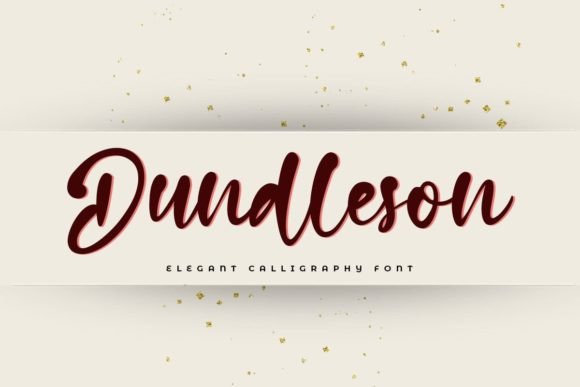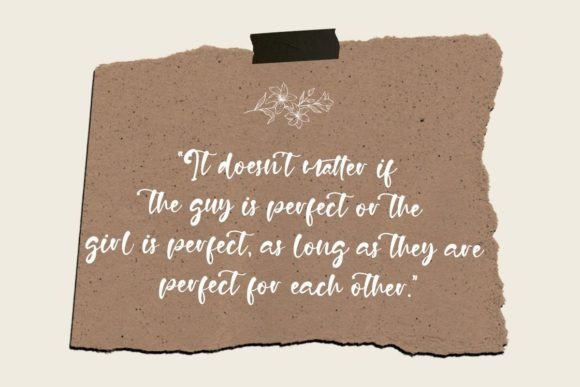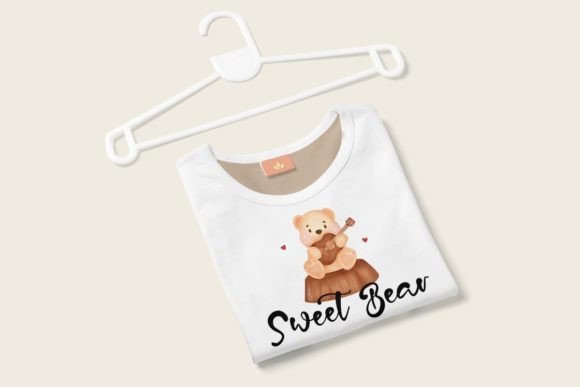
About Dundleson Font
Dundleson is a beautiful handwritten font designed to make your work stand out with its unique and eye-catching shape. Whether you’re working on product packaging, branding projects, or any design where a personal touch is desired, Dundleson adds a distinctive and stylish flair.
The beauty of Dundleson is evident in its carefully crafted letterforms, which contribute to its unique and eye-catching appearance. The handwritten style of the font brings a personal and authentic touch to your designs, making it a great choice for projects that require individuality.
The PUA encoding feature in Dundleson is a valuable addition, providing easy access to a variety of glyphs and ligatures. This feature enhances your creative freedom, allowing you to customize and experiment with different elements in your designs.
Whether used for product packaging or branding projects, Dundleson stands out as a typeface that combines beauty with versatility. It adds a touch of uniqueness to your creative endeavors, making it suitable for a wide range of applications.
Incorporate Dundleson into your design toolkit and experience how it enhances the overall aesthetics of your projects. Let this beautiful handwritten font be the key to creating work that captures attention and stands out with its eye-catching shape and personal touch.